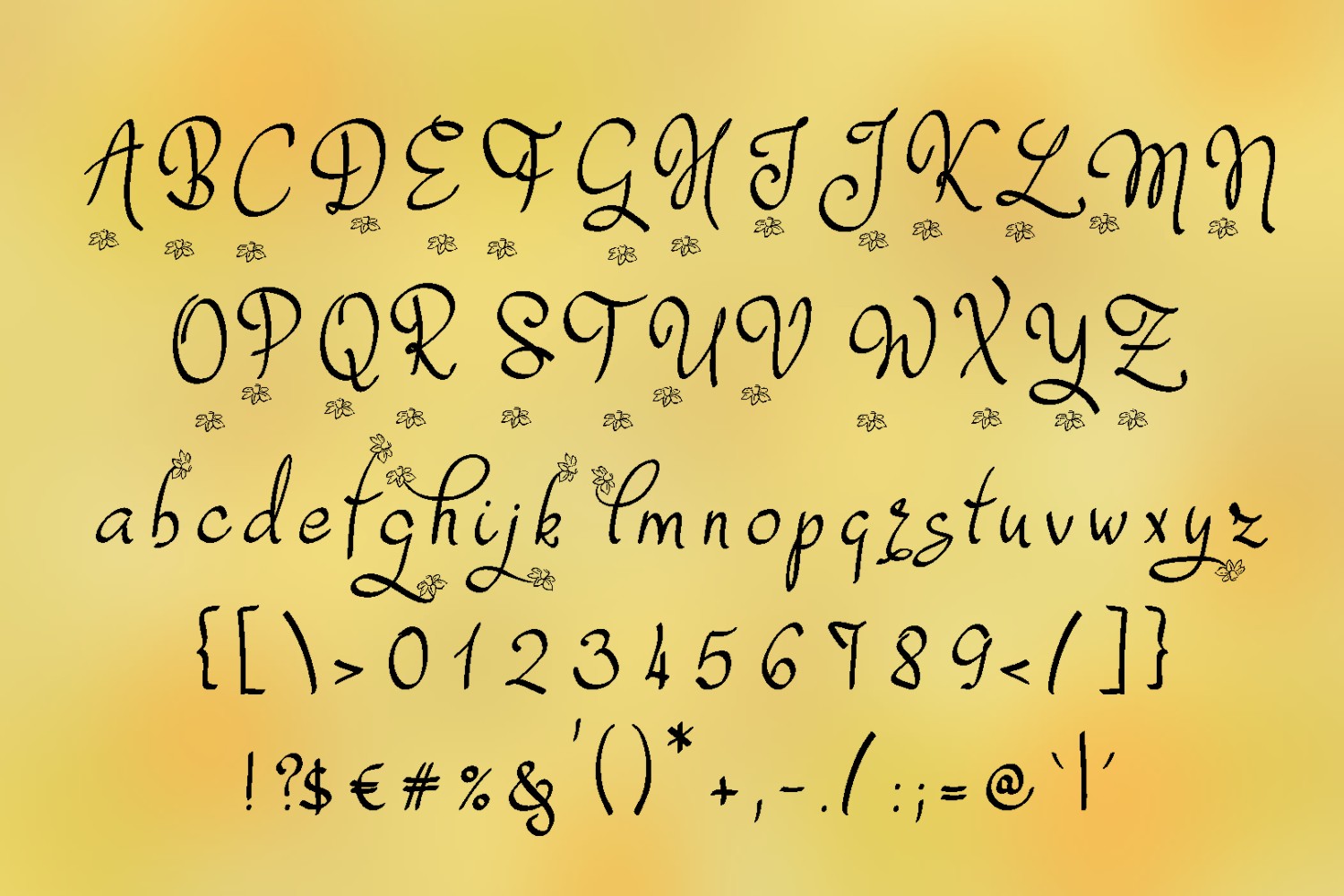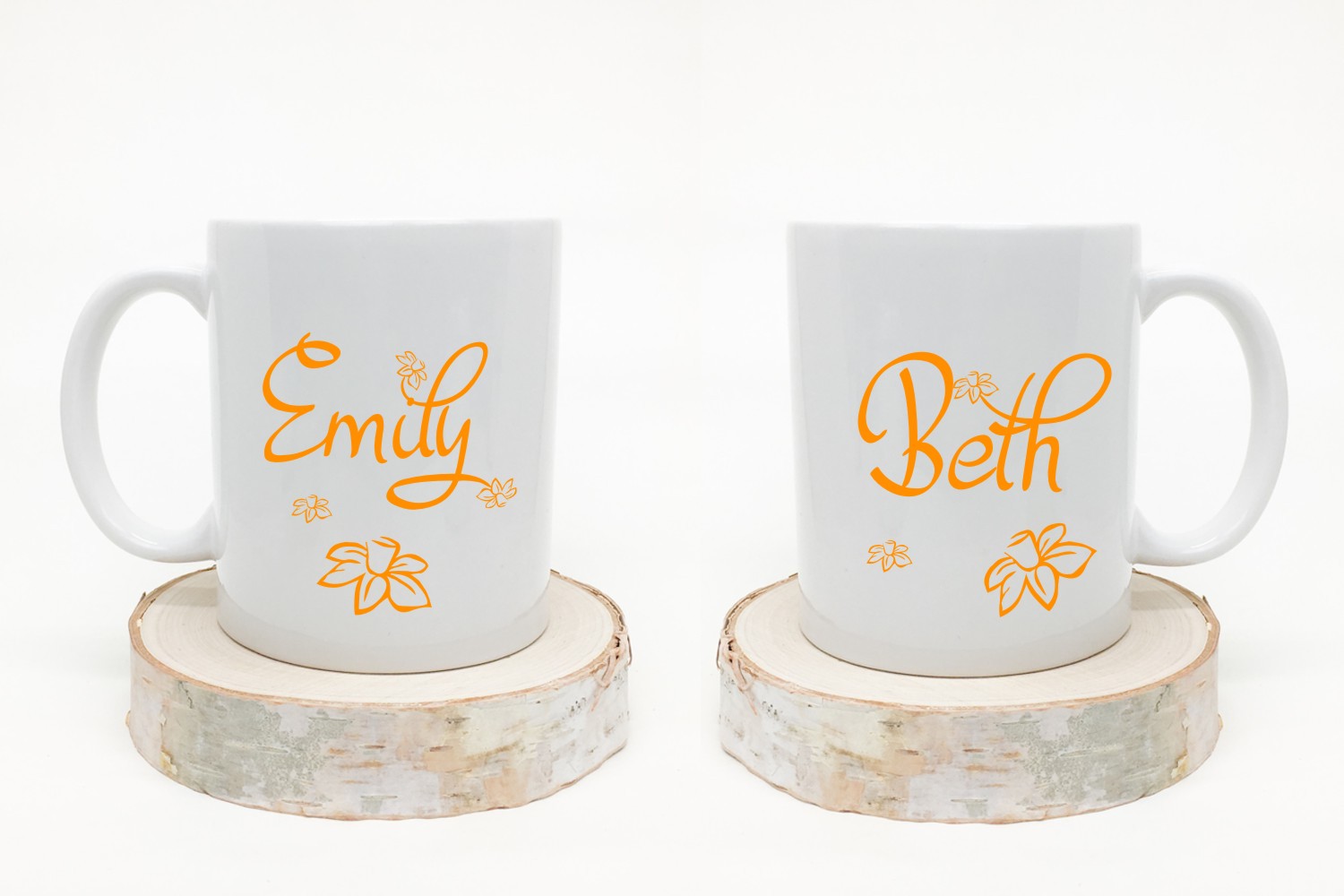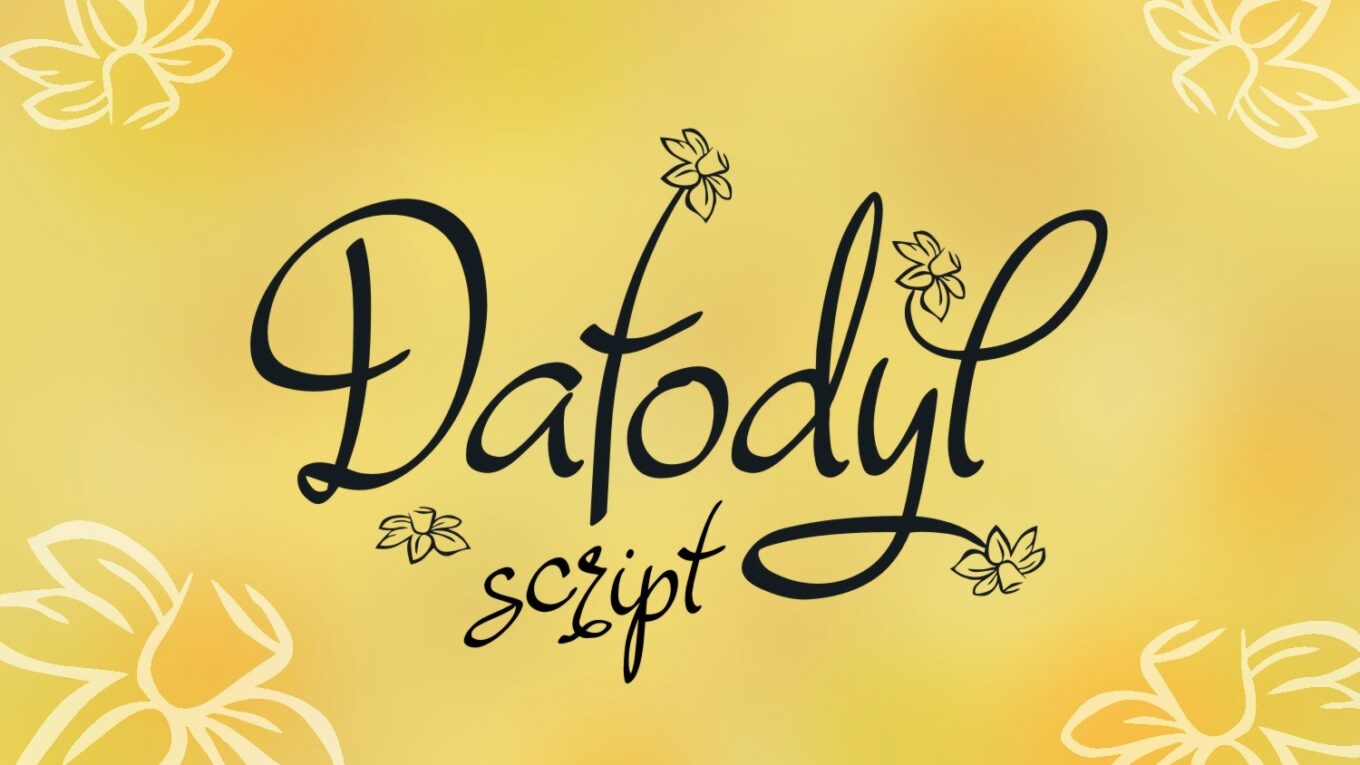
Dafodyl Font: A Beautiful Floral Decorated Handwritten Typeface
Are you a designer or crafter looking for a unique and elegant font to add a touch of personality to your projects? Look no further than Dafodyl Font, a stunning floral decorated handwritten typeface that is sure to impress. In this article, we’ll take a closer look at Dafodyl Font, its features, and how you can use it to elevate your designs.
What is Dafodyl Font?
Dafodyl Font is a beautiful floral decorated handwritten typeface that is perfect for a variety of design projects. The font features intricate floral patterns and decorations that add a touch of elegance and sophistication to any text. Dafodyl Font is designed to be highly versatile, making it suitable for use in a range of applications, from wedding invitations and stationery to branding and packaging.
Key Features of Dafodyl Font
So, what makes Dafodyl Font so special? Here are just a few of its key features:
- Floral Decorations: Dafodyl Font features intricate floral patterns and decorations that add a touch of elegance and sophistication to any text.
- Handwritten Style: The font has a beautiful handwritten style that gives it a personal and unique feel.
- Highly Versatile: Dafodyl Font is suitable for use in a range of applications, from wedding invitations and stationery to branding and packaging.
How to Use Dafodyl Font
So, how can you use Dafodyl Font in your designs? Here are a few ideas to get you started:
- Wedding Invitations: Dafodyl Font is perfect for wedding invitations, adding a touch of elegance and sophistication to your wedding stationery.
- Branding and Packaging: The font is also suitable for use in branding and packaging, adding a touch of personality and whimsy to your brand.
- Stationery: Dafodyl Font is perfect for creating beautiful stationery, including notecards, greeting cards, and more.
- Digital Designs: The font can also be used in digital designs, including social media graphics, blog posts, and more.
Tips for Working with Dafodyl Font
Here are a few tips for working with Dafodyl Font:
- Use it Sparingly: Dafodyl Font is a decorative font, so it’s best to use it sparingly to add emphasis and interest to your text.
- Pair it with a Simple Font: Pair Dafodyl Font with a simple font to create a beautiful contrast and add visual interest to your design.
- Experiment with Colors: Dafodyl Font looks beautiful in a range of colors, so don’t be afraid to experiment and find the perfect color for your design.
Dafodyl Font is a beautiful floral decorated handwritten typeface that is perfect for designers and crafters looking to add a touch of elegance and sophistication to their projects. With its intricate floral patterns and decorations, Dafodyl Font is sure to impress. Whether you’re creating wedding invitations, branding and packaging, or digital designs, Dafodyl Font is a versatile and easy-to-use font that is sure to elevate your designs.